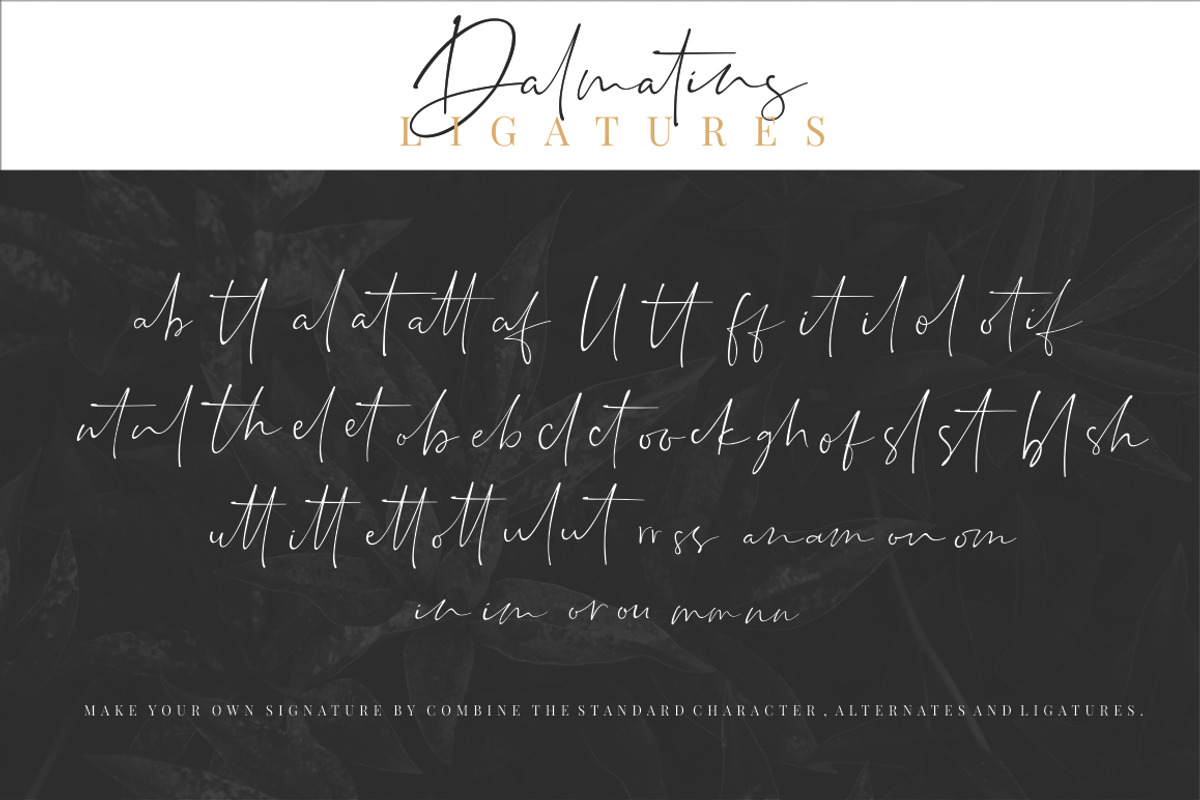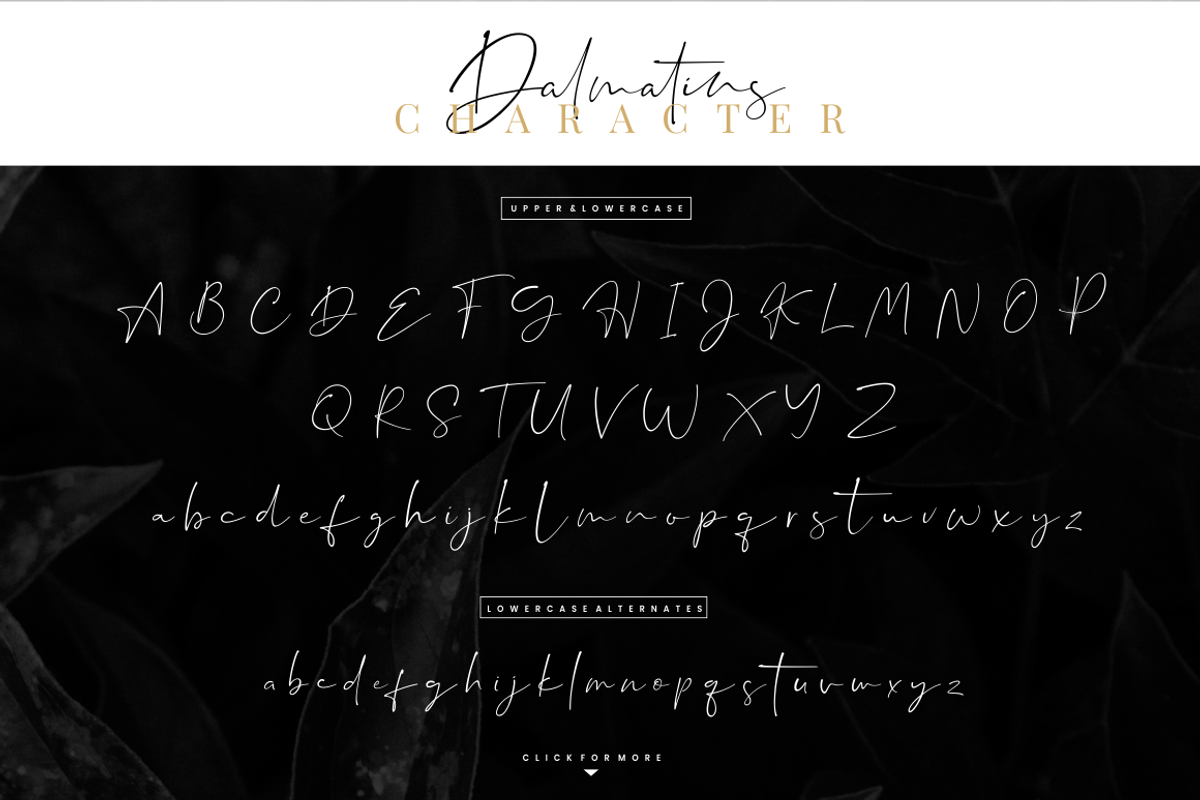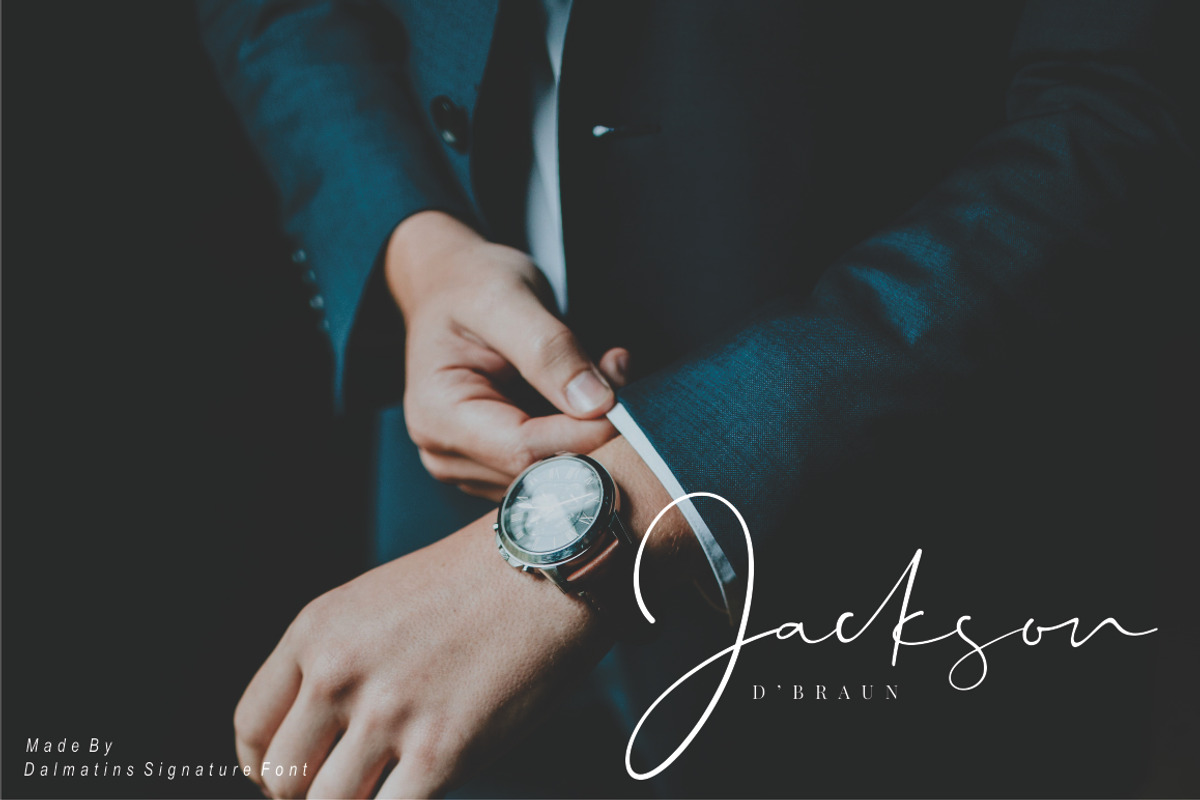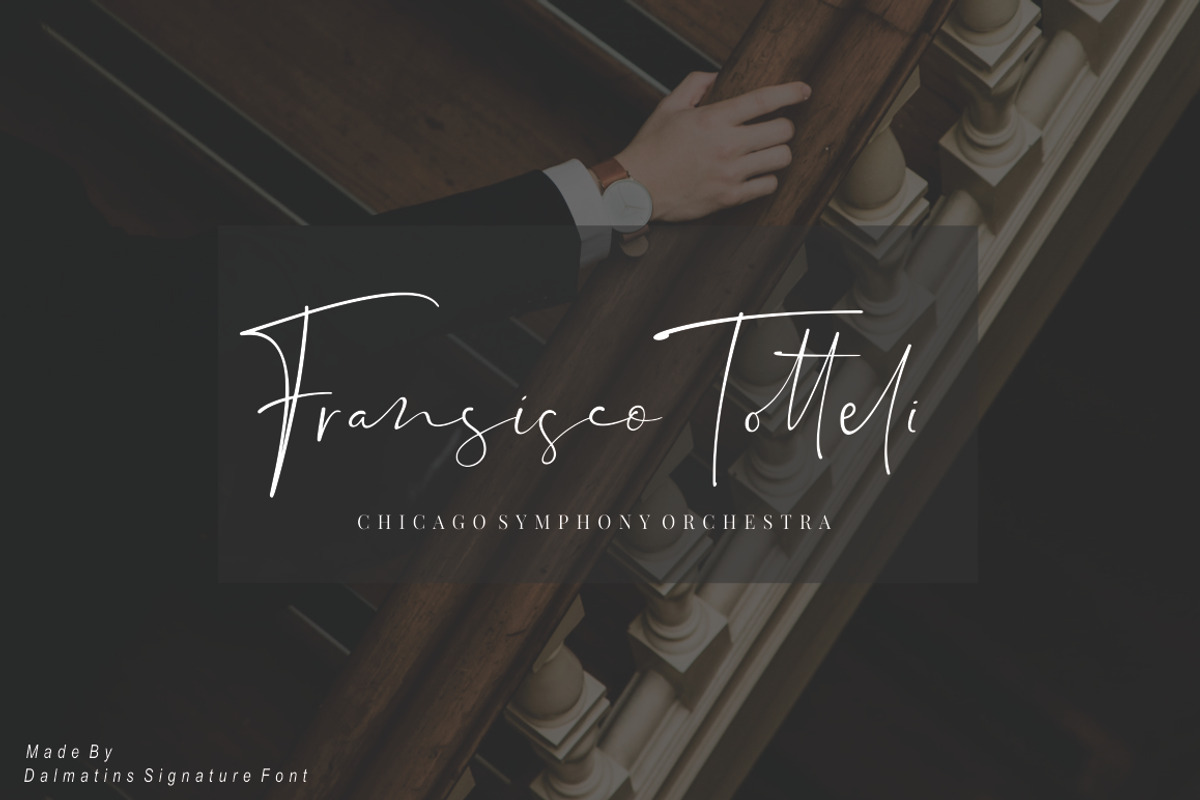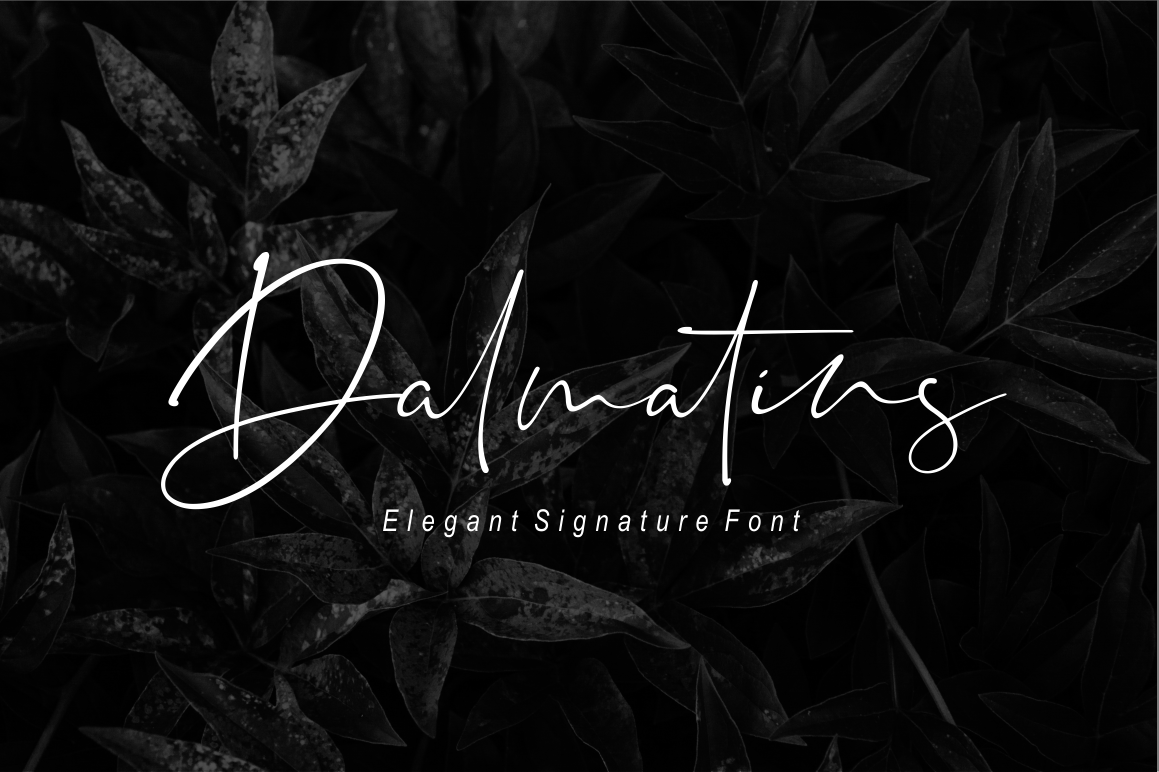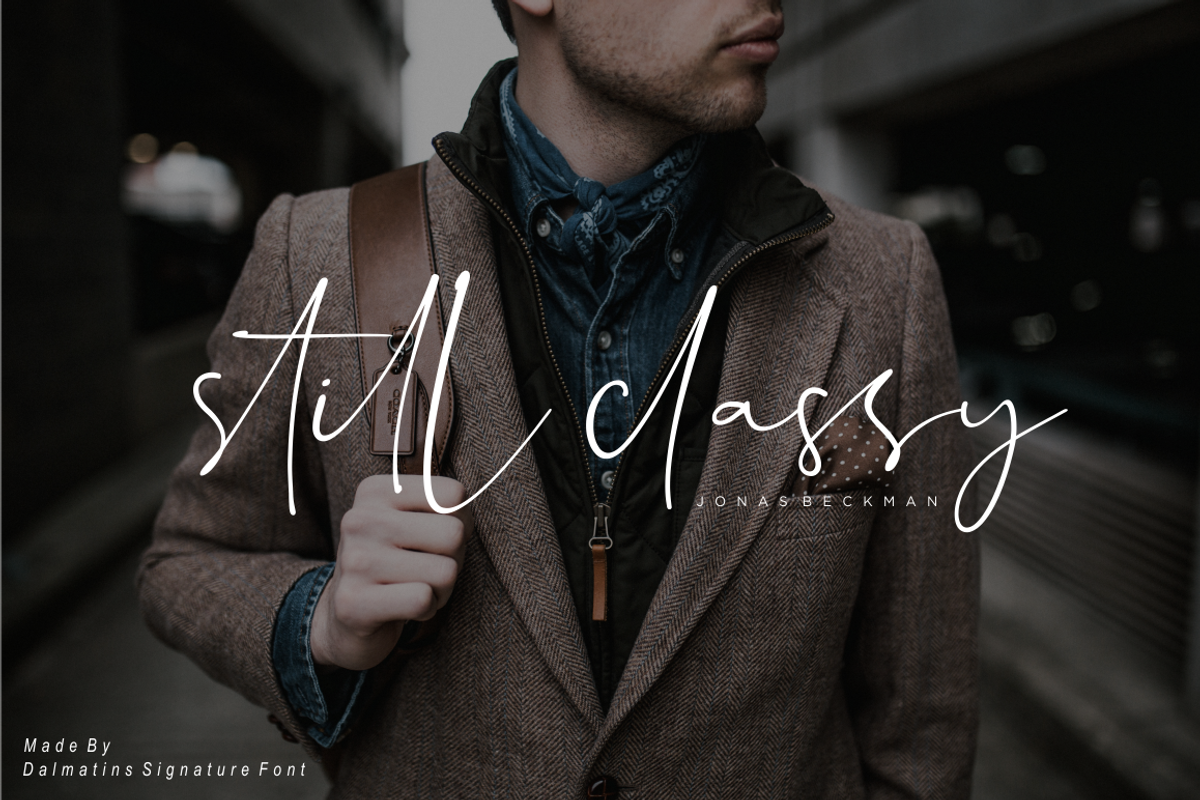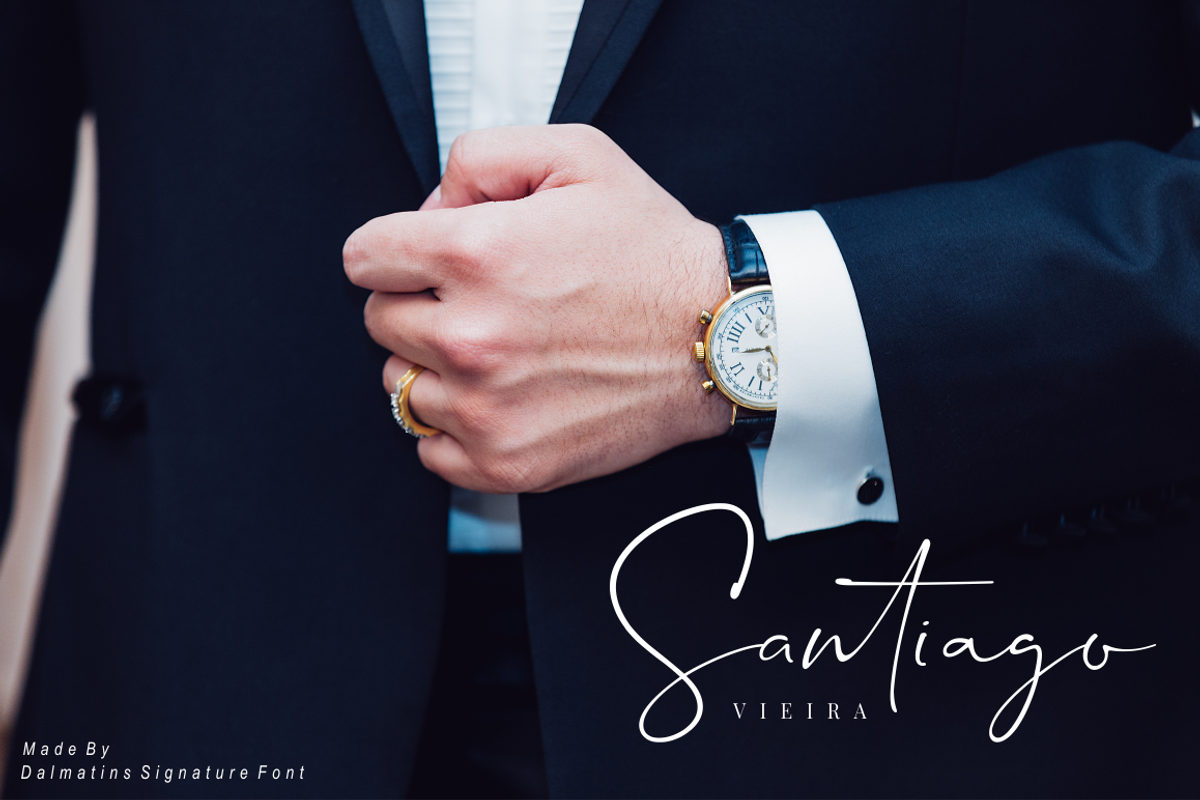
Dalmatins // Elegant Signature Font
Introducing Dalmatins – a new modern signature with elegant lines make this font perfect for your personal branding and any awesome project, such as : logos, invitations, stationery, wedding designs, social media posts, advertisements, product packaging, product designs, labels, photography, watermarks, special events and much more !